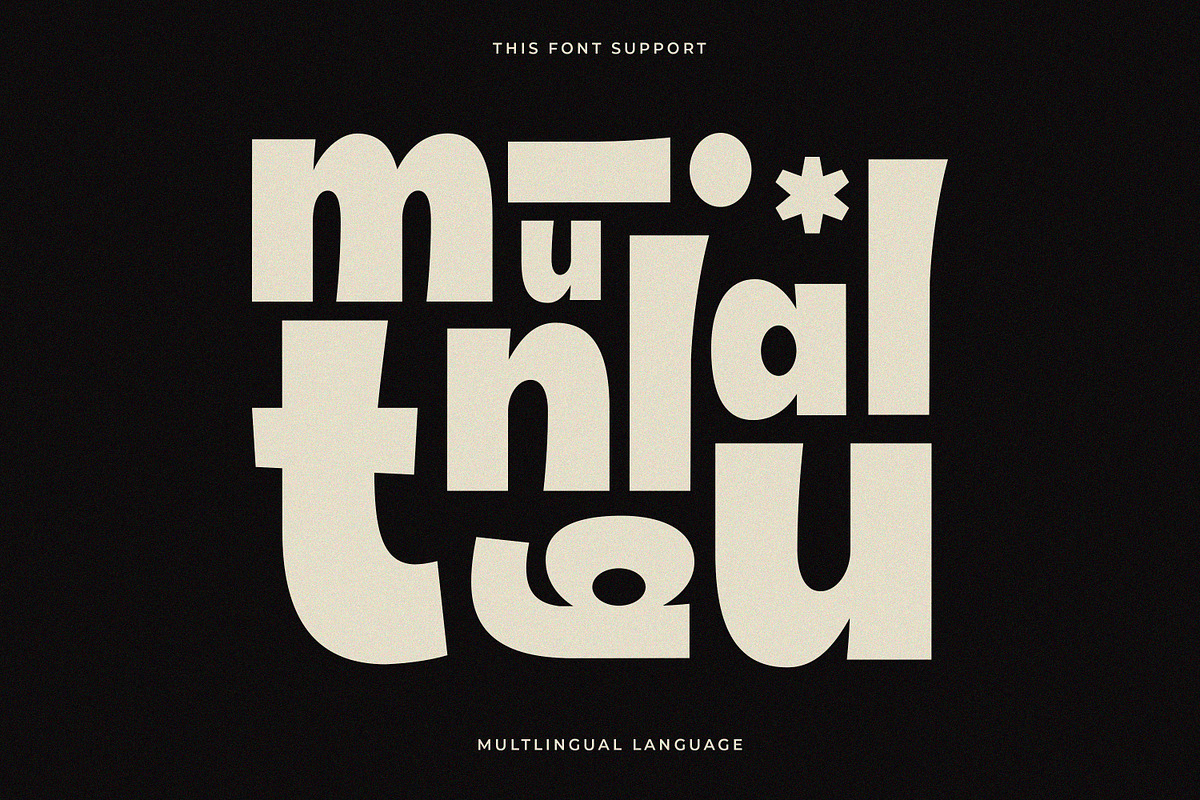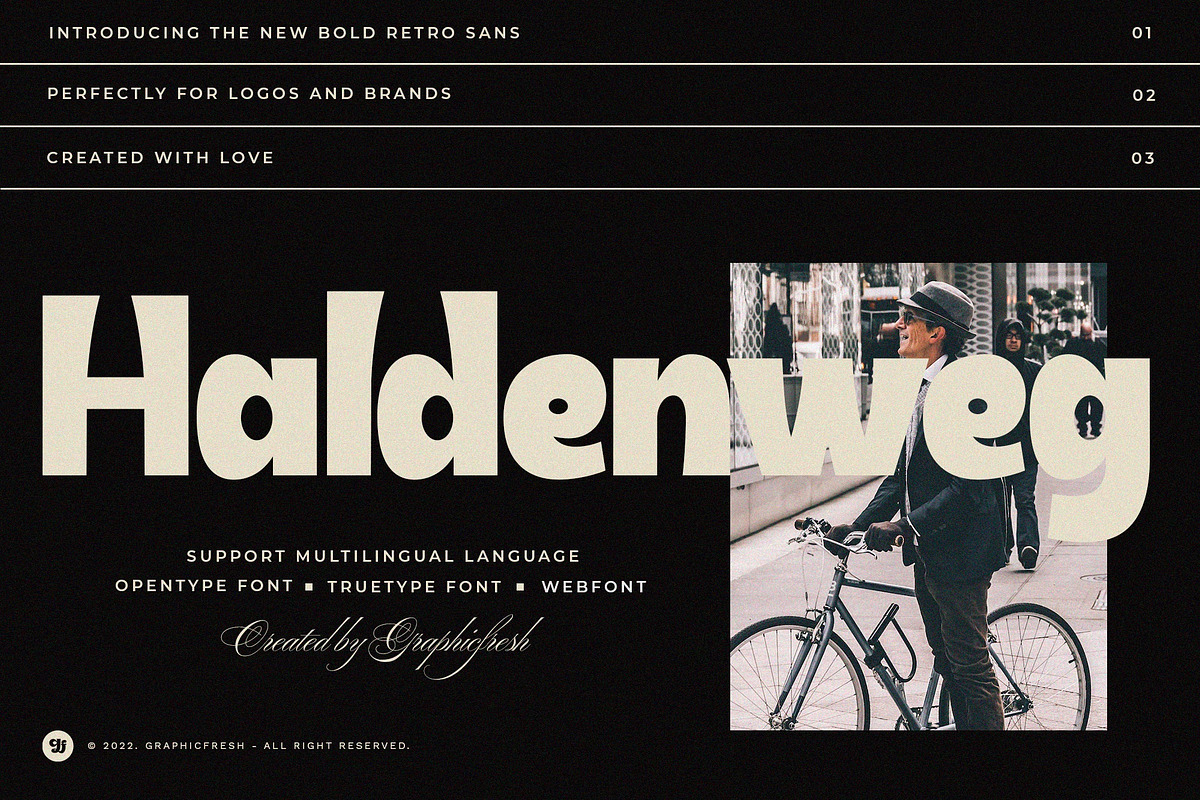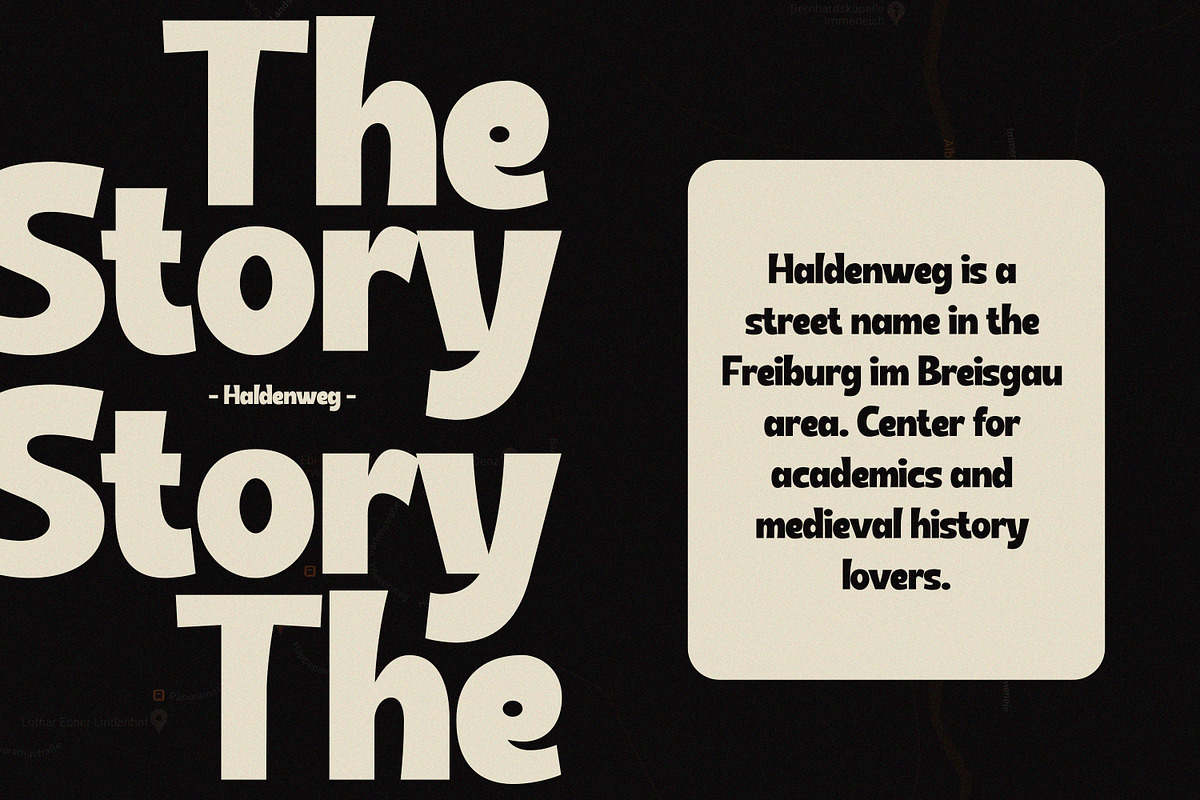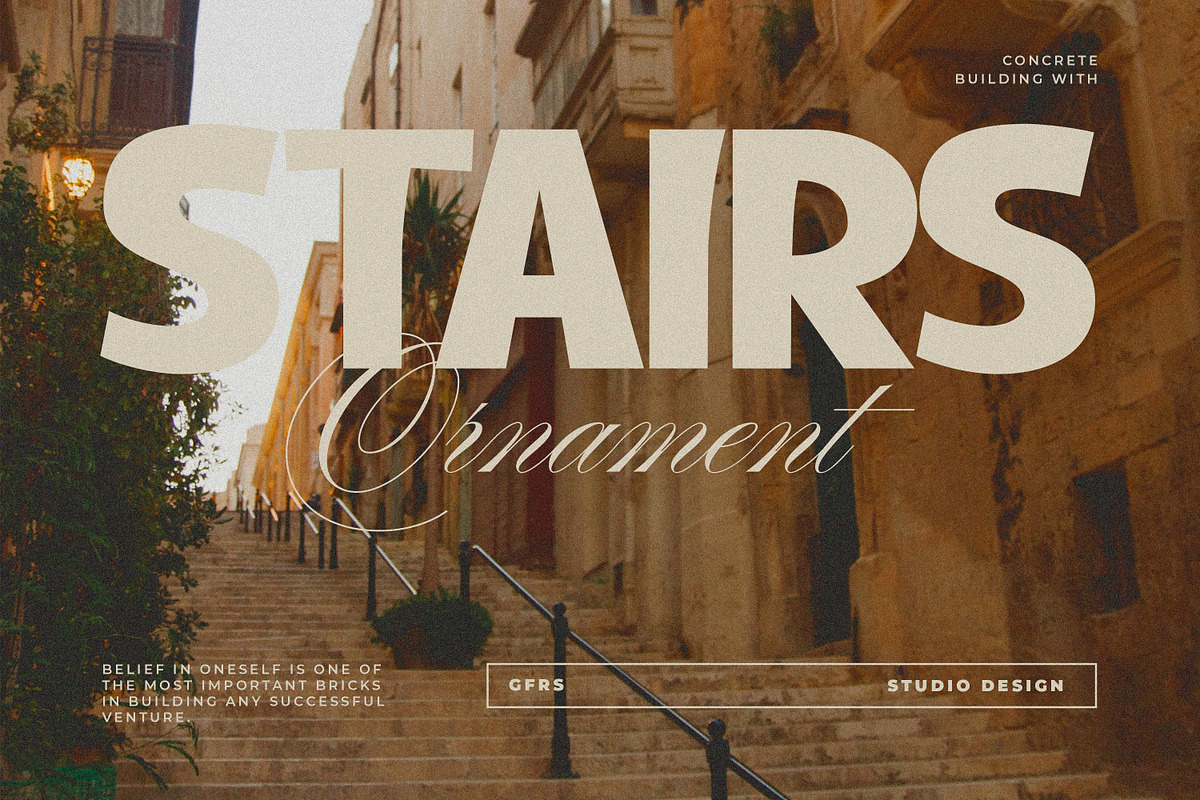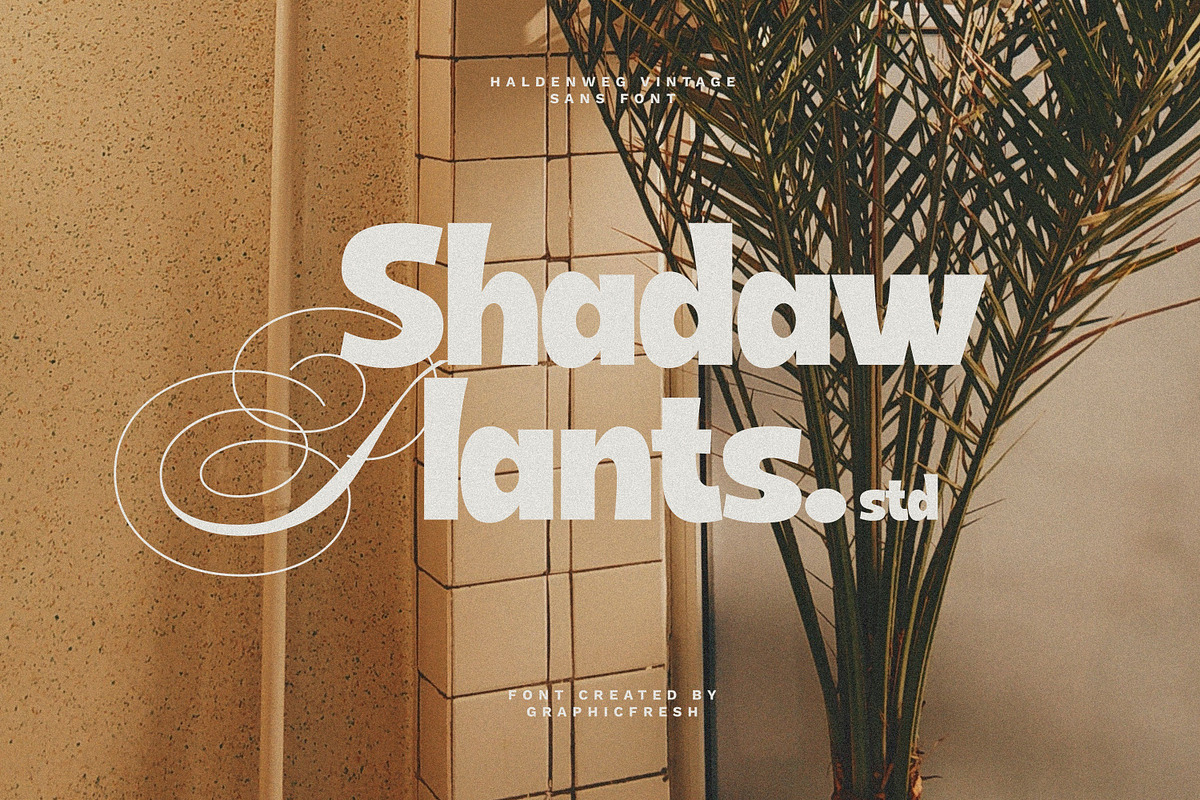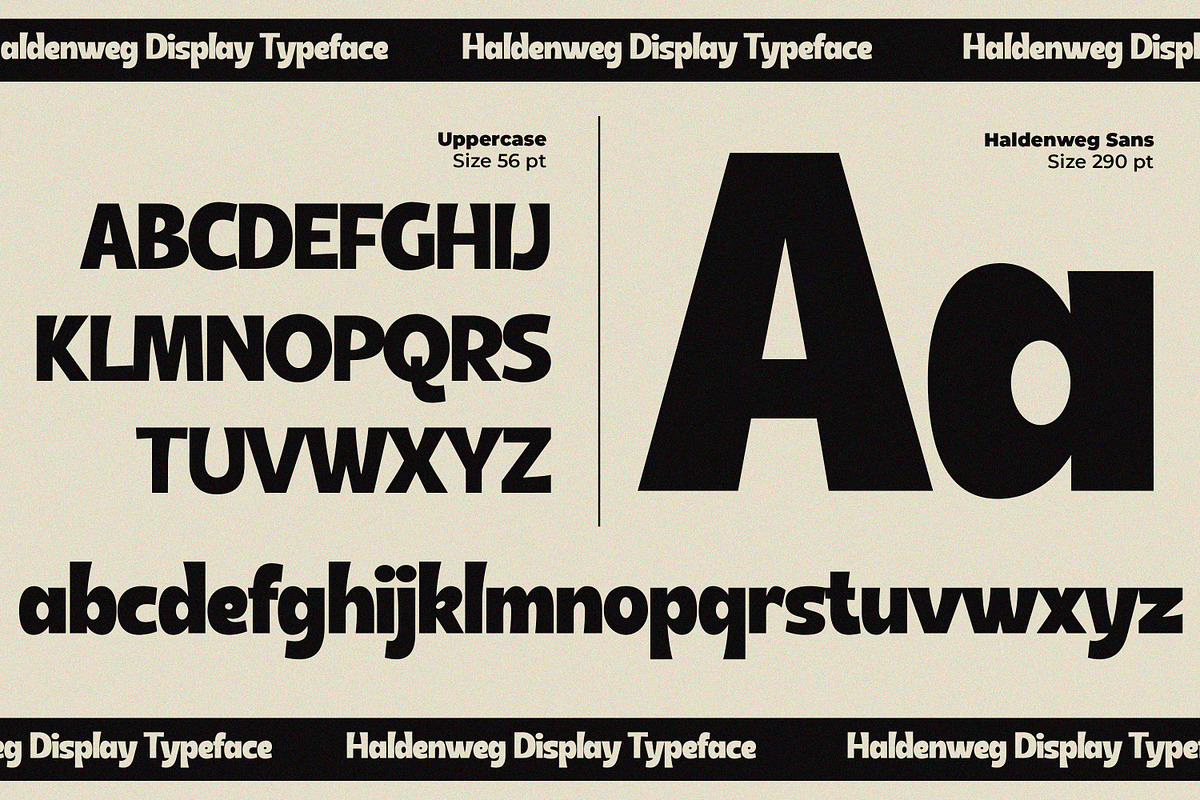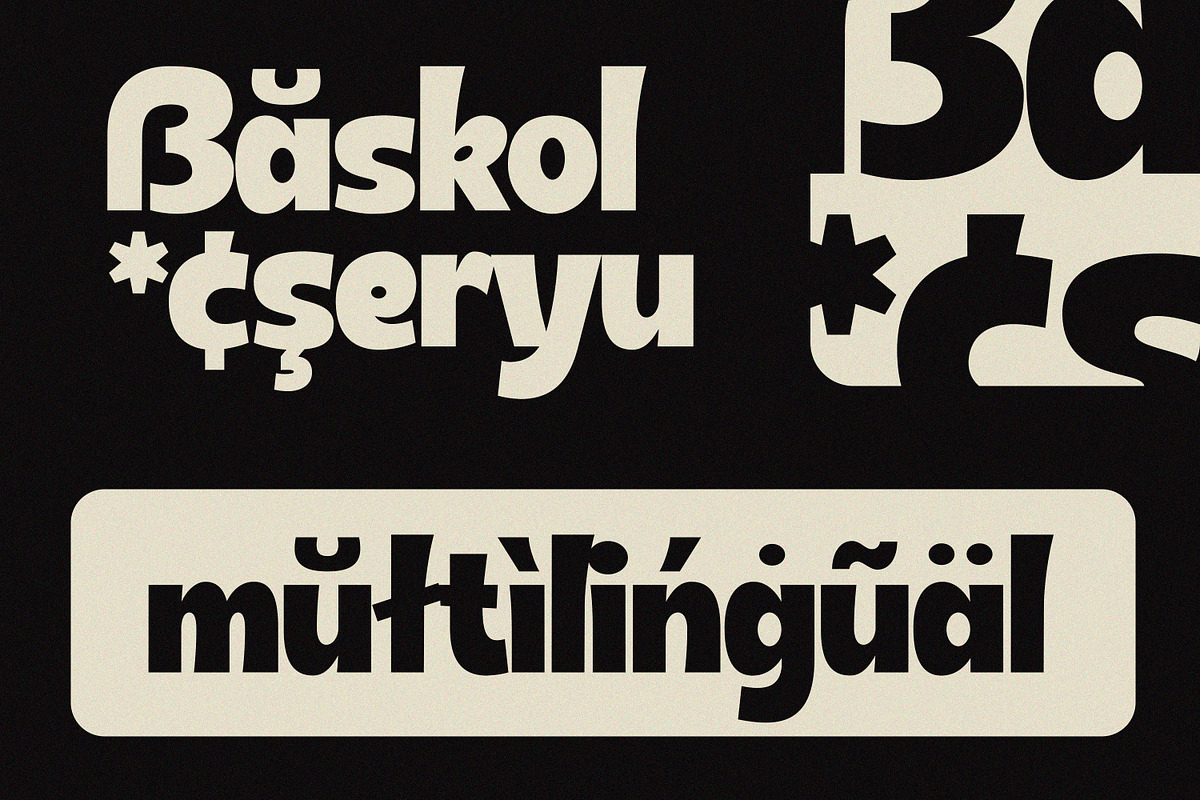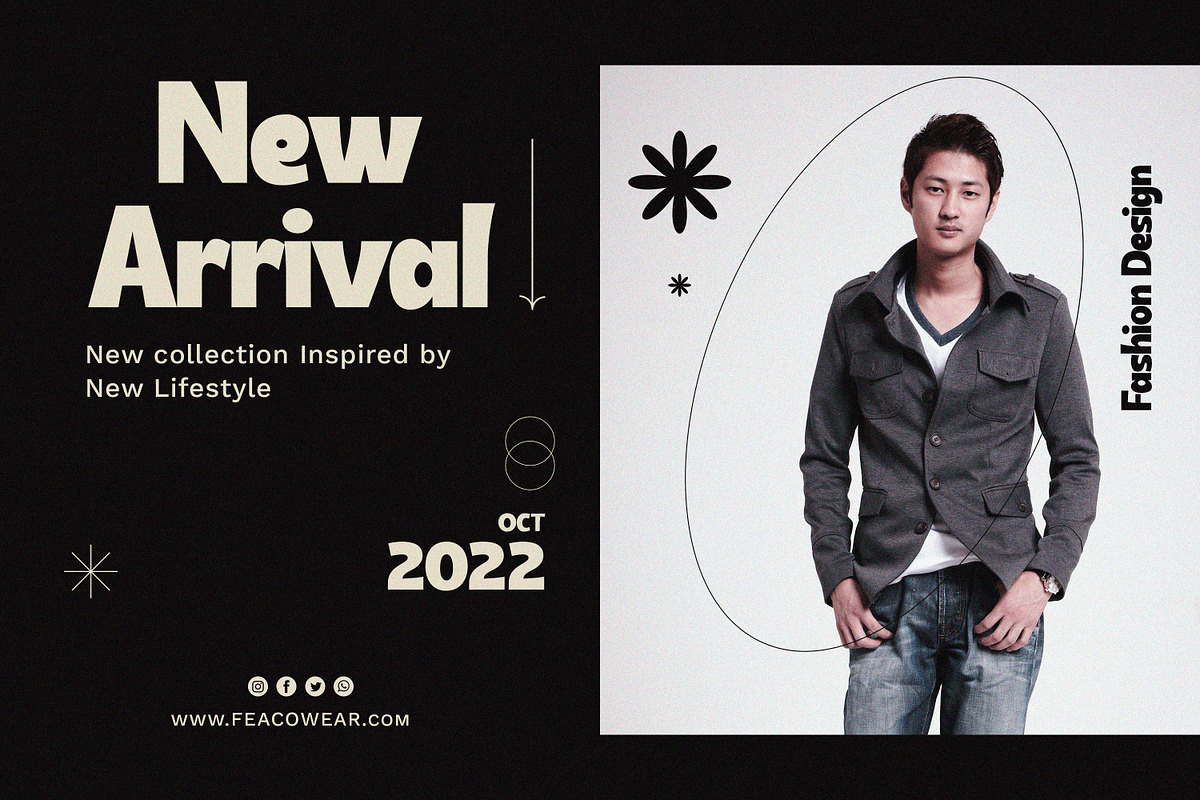
Haldenweg - Bold Retro Sans
Hi everyone, this time we created a new font in retro style. An adaptation of the life of the design industry in the 80s and 90s. We made this so you can reminisce in a classic style. This font looks classic, but a modern and elegant impression is still embedded in it.